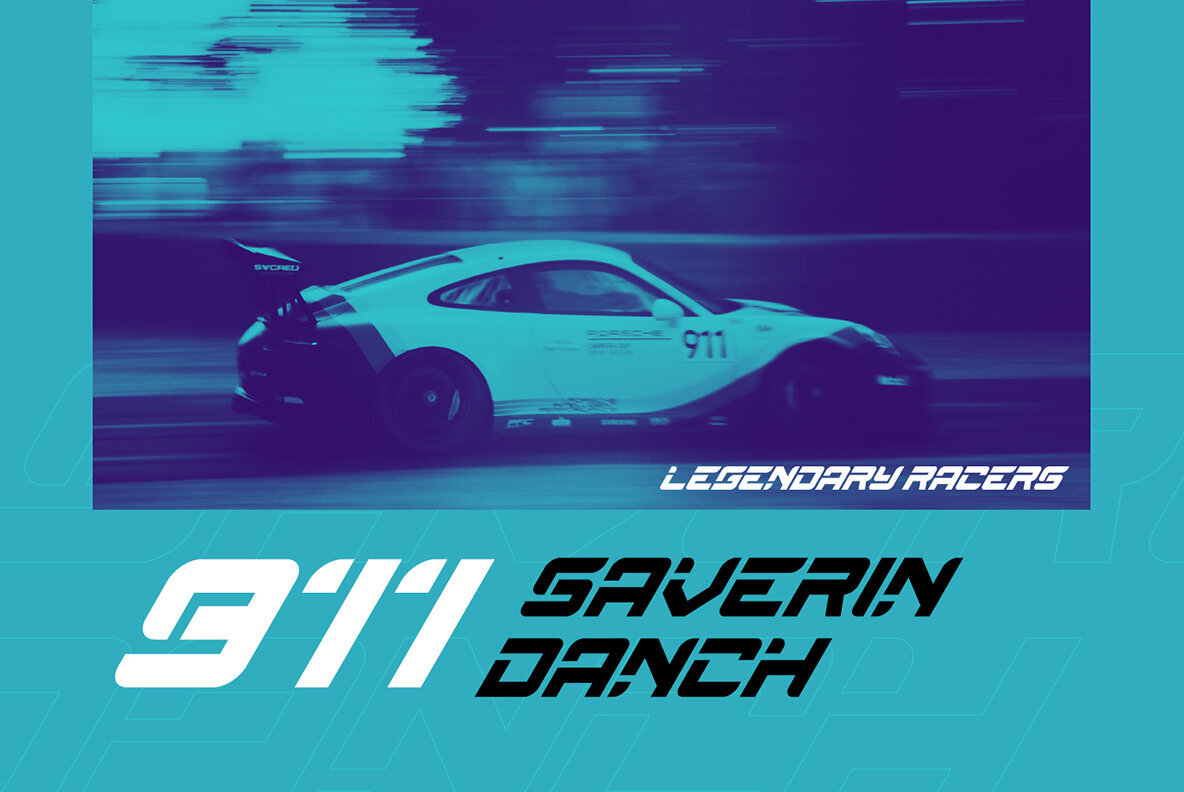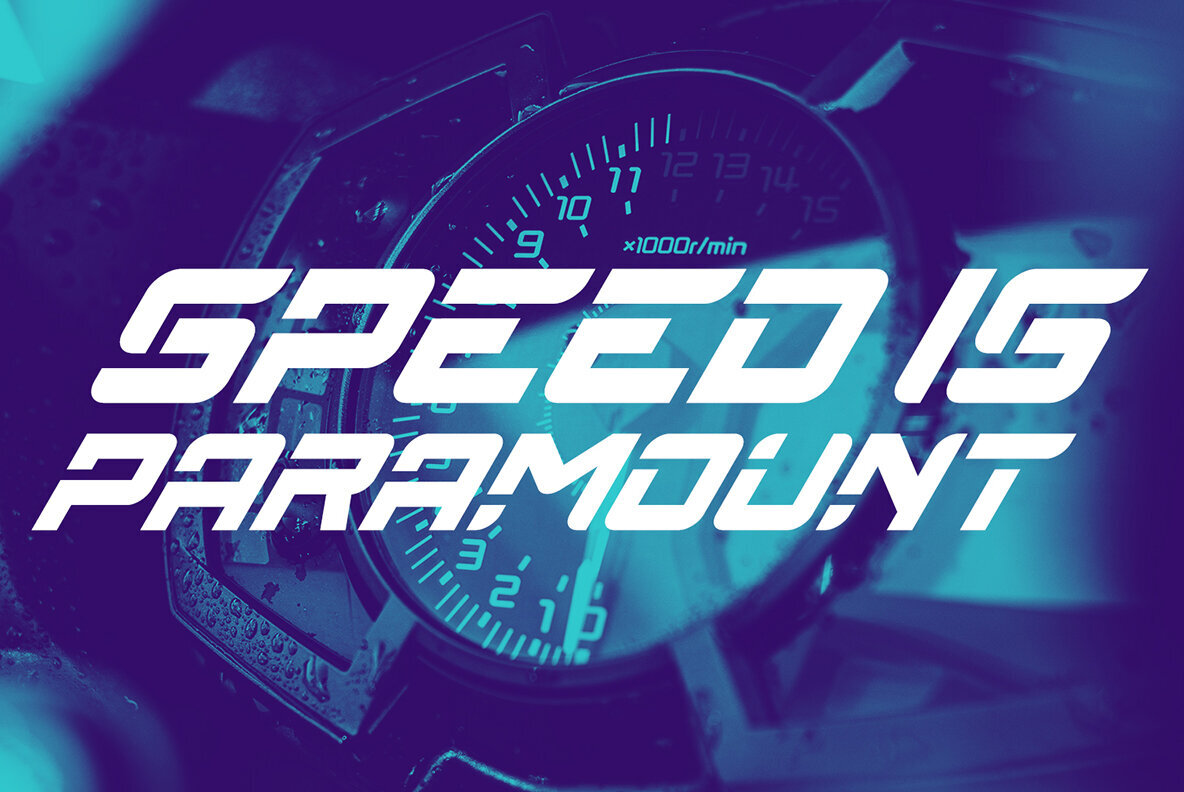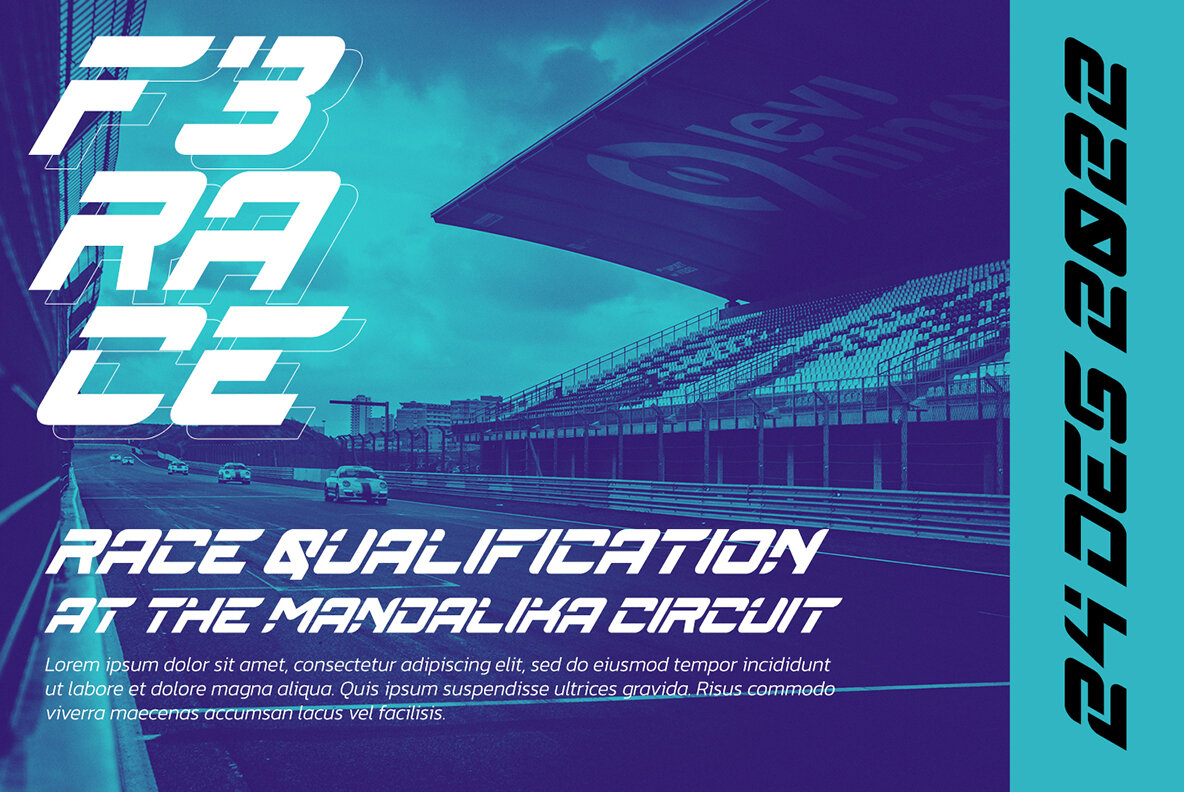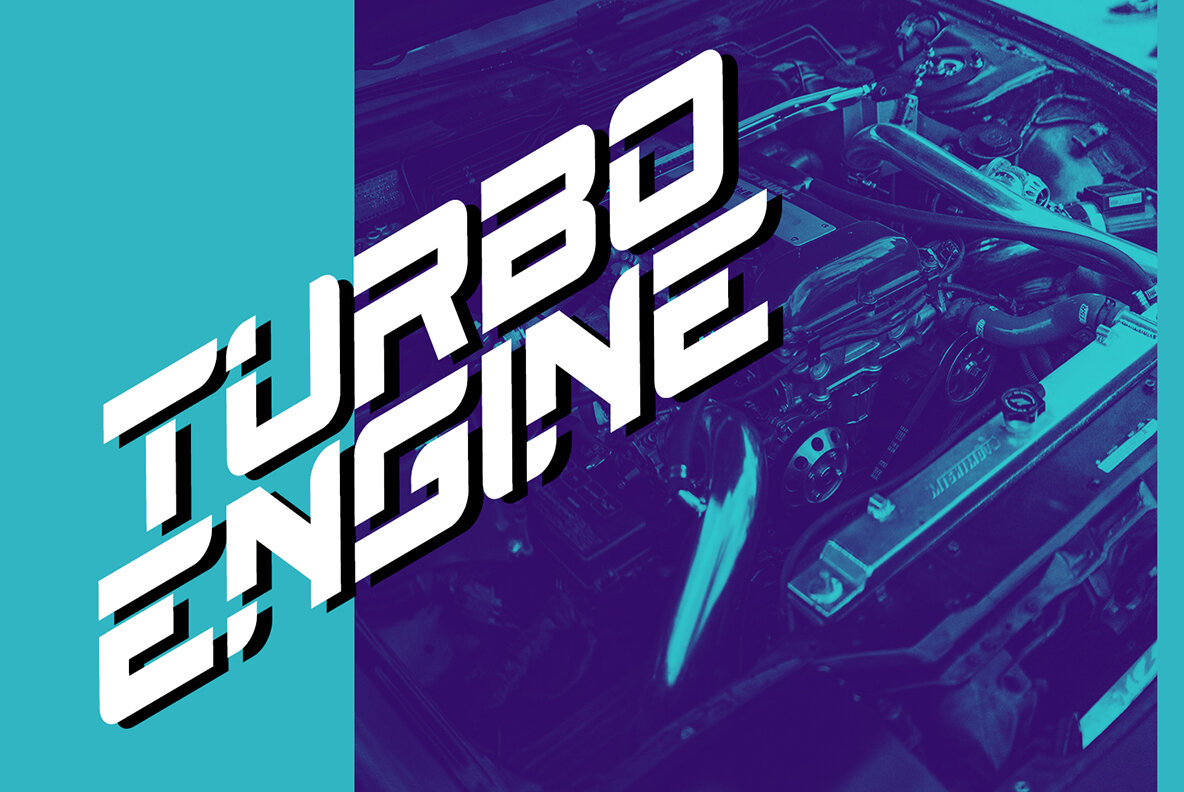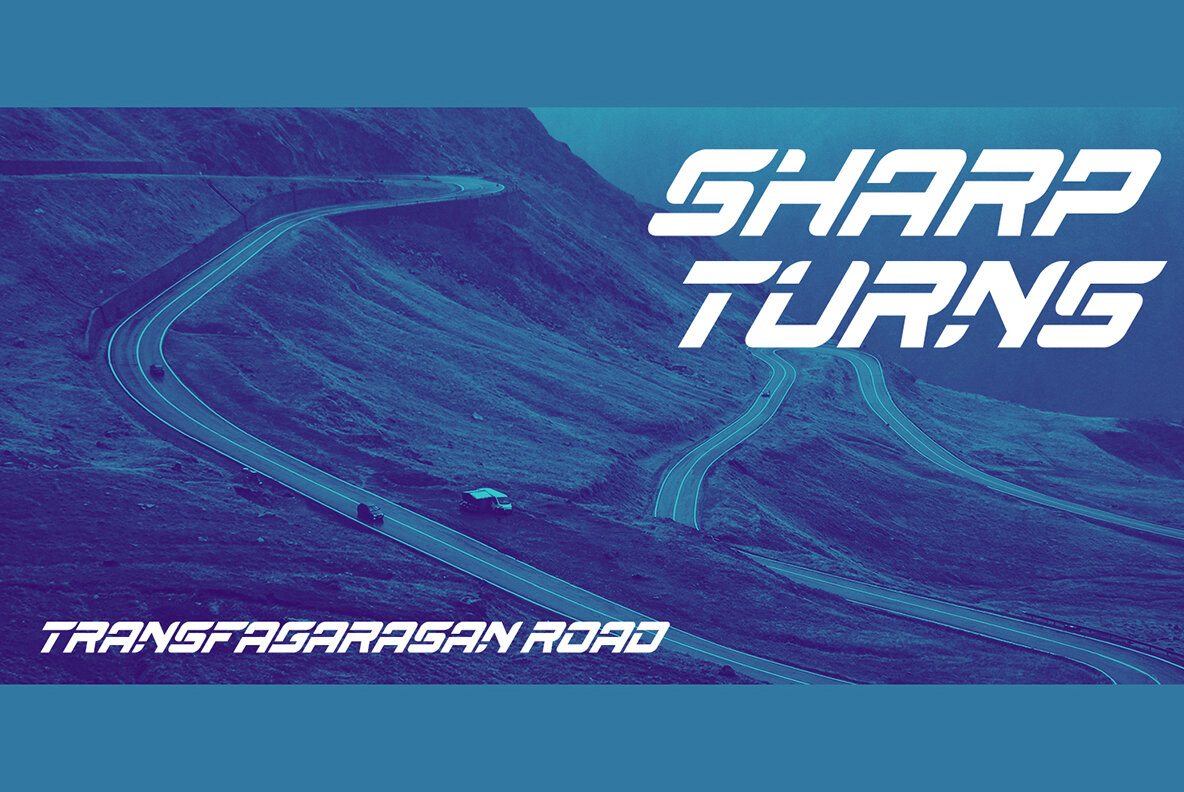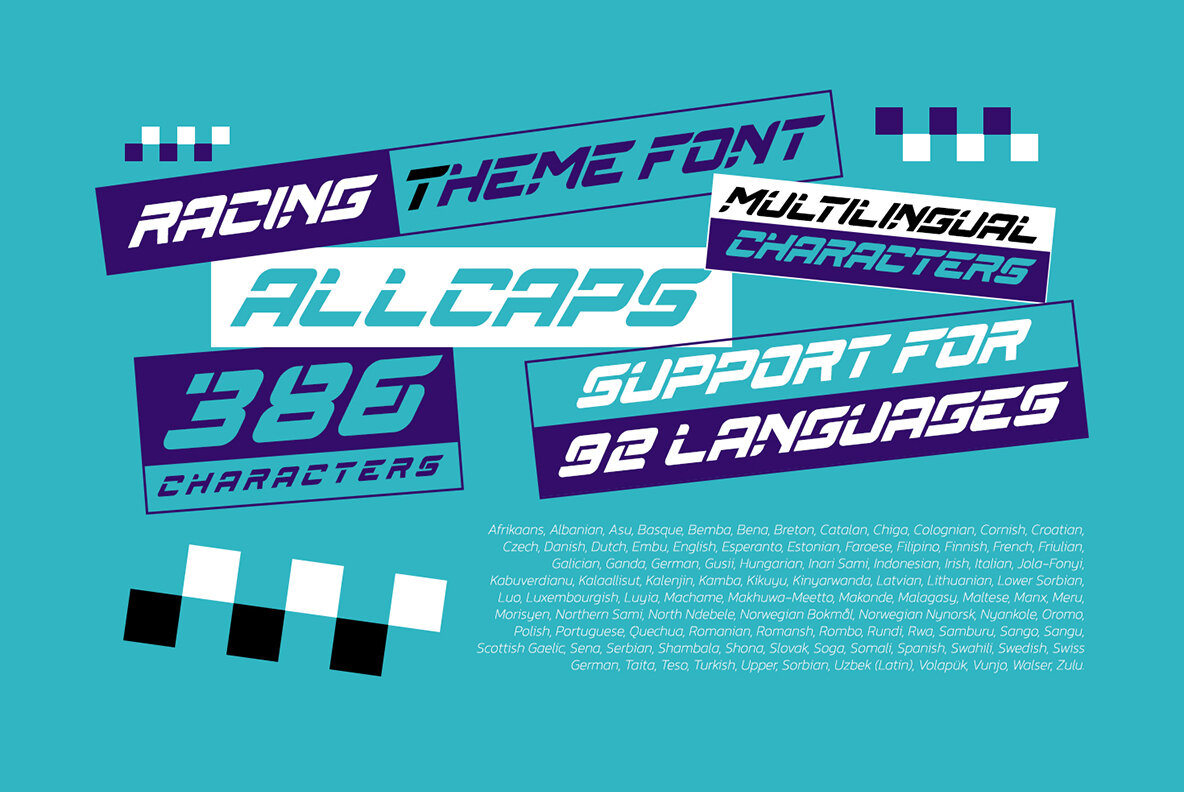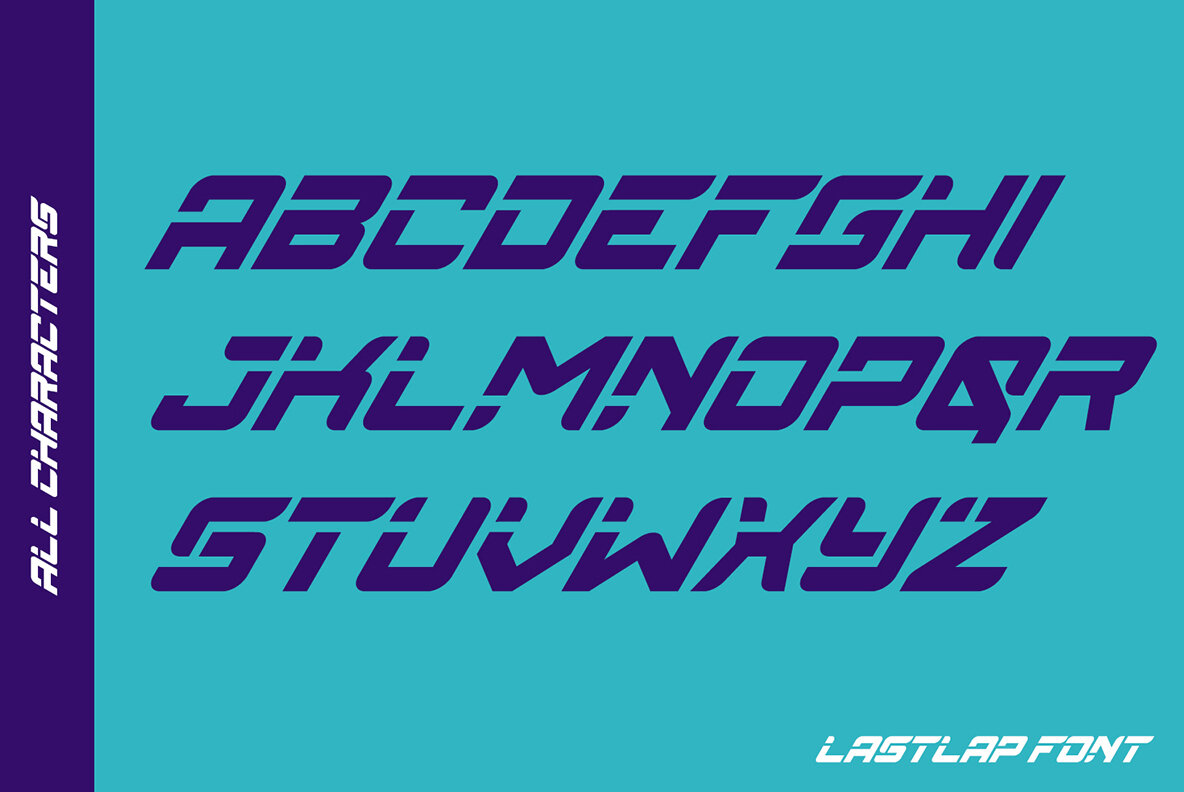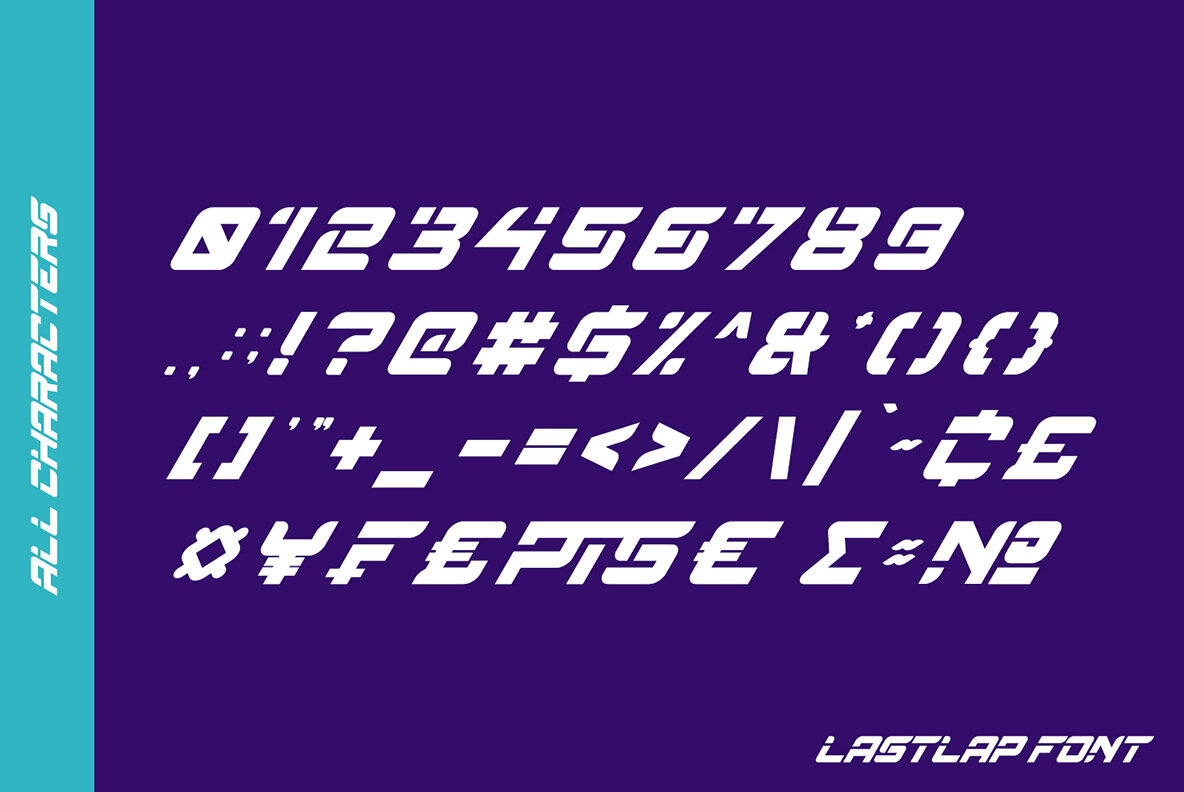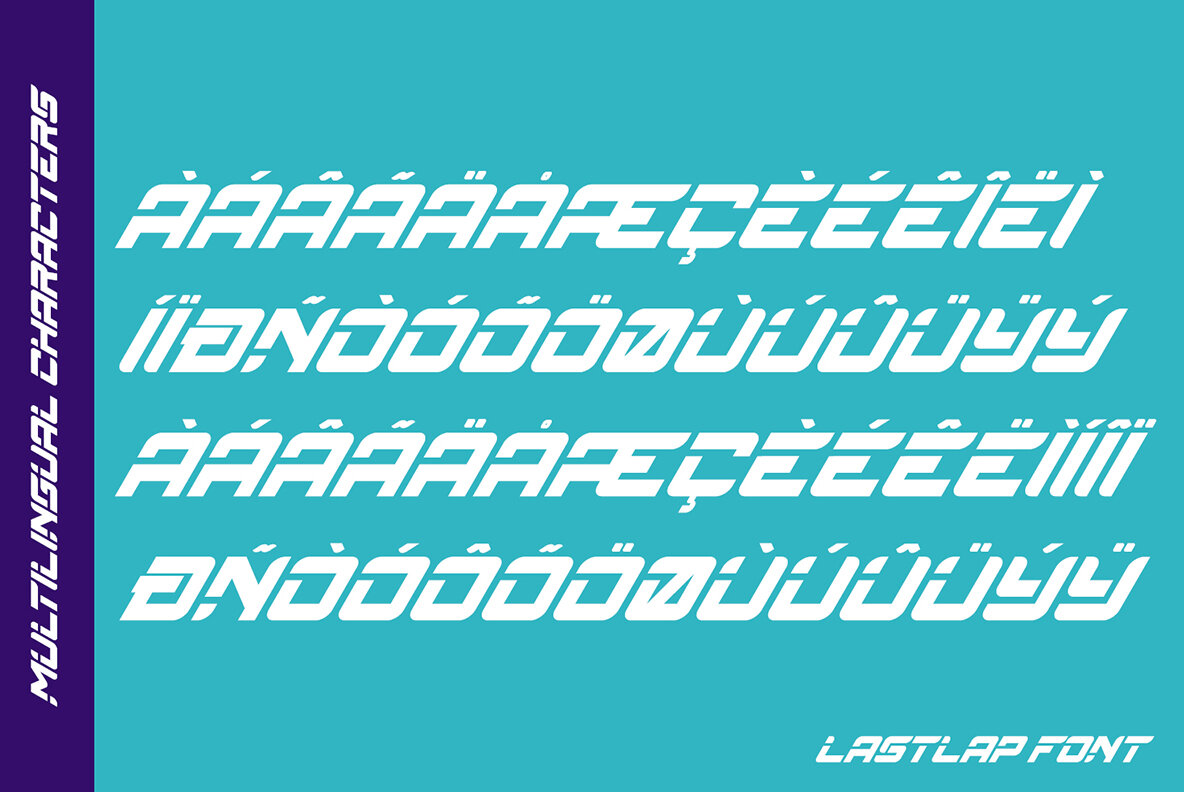
Lastlap Font
Lastlap Regular
Immerse yourself in the bold and dynamic world of Lastlap, a display font meticulously crafted for a racing aesthetic. With its daring and robust style, Lastlap is perfect for titles, logos, and any design requiring bold text. This font captures the essence of speed and confidence, adding a striking visual impact to every project it graces. Explore Lastlap's potential as it excels in diverse design applications, including posters, banners, book covers, and merchandise. This font breathes life into social media graphics and printed materials alike. Preview the font to unveil its many possibilities.Lastlap: Racing-Themed Display Font